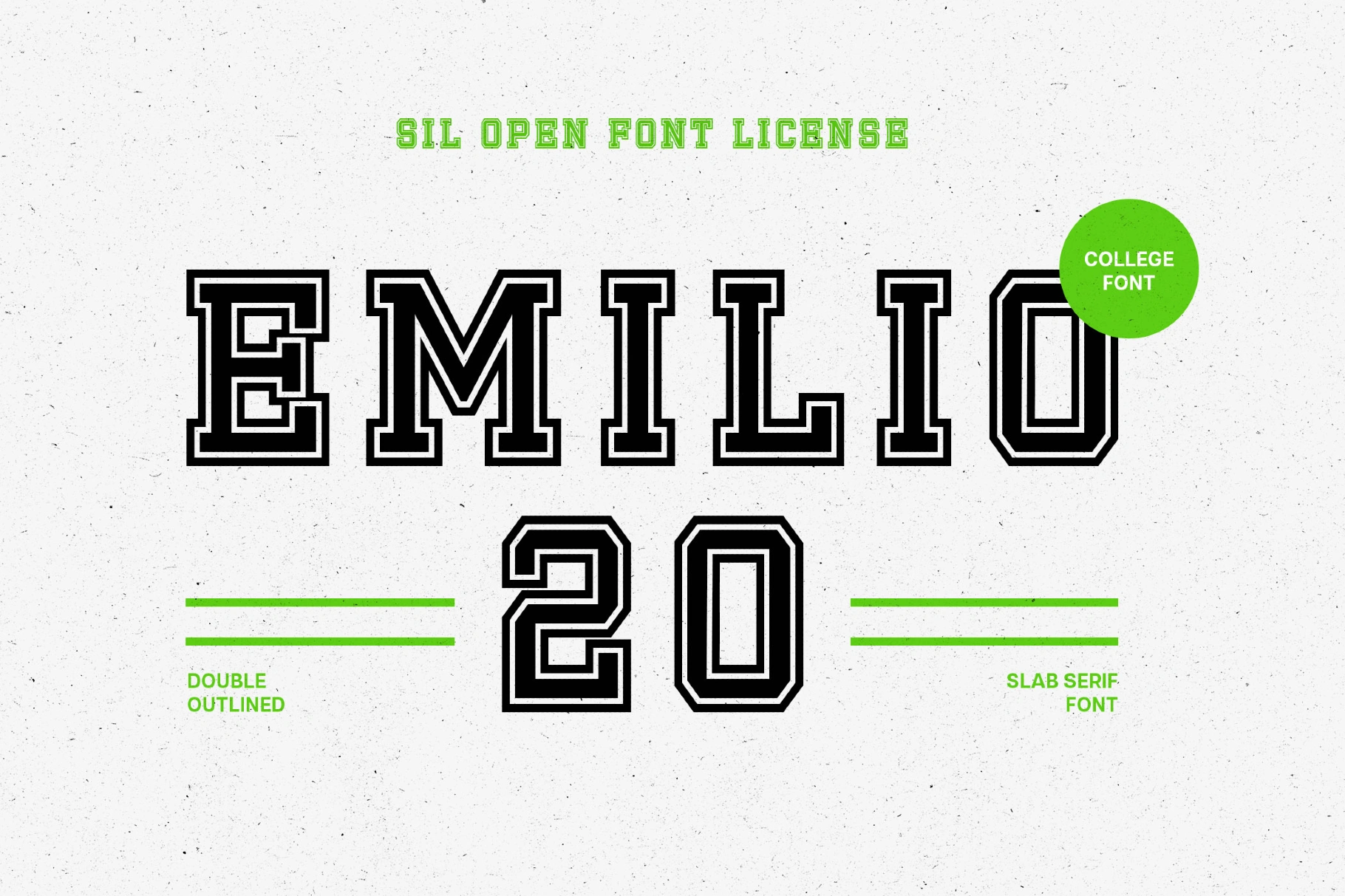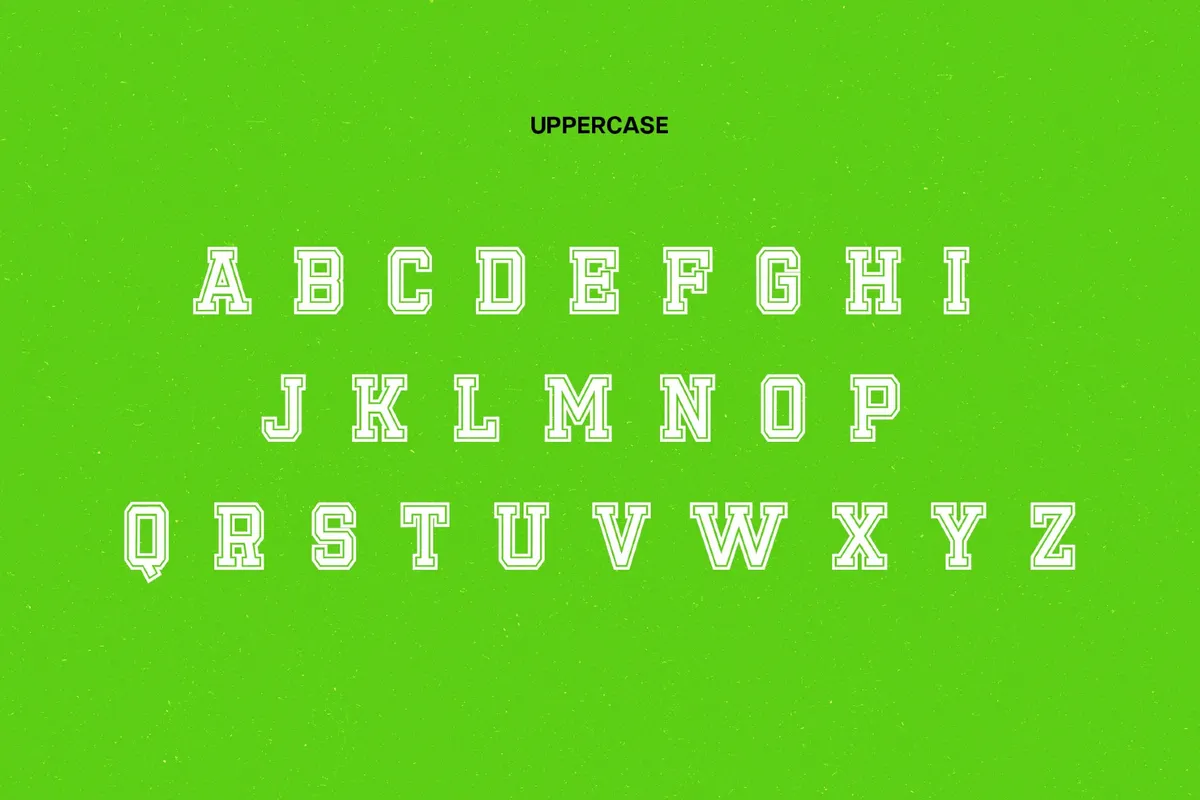
Emilio 20 Font
emilio 20
This font is a double-outlined collegiate slab serif with jersey-stencil snap, rooted in letterman jackets and vintage stadium signage. It takes its cues from varsity chest prints, scoreboard numerals, and the bold ink of pep-rally posters. Use it for sports team identities, tournament posters, jersey numbers, athletic apparel graphics, campus event branding, and punchy title cards for video.